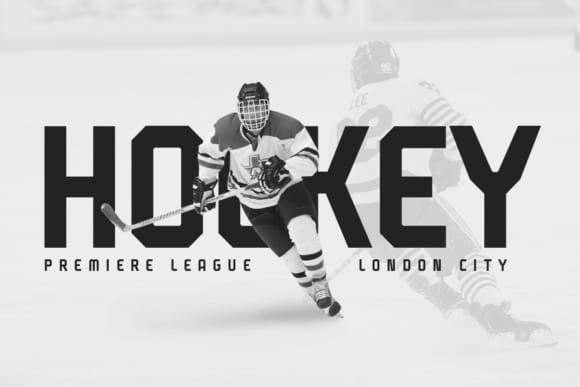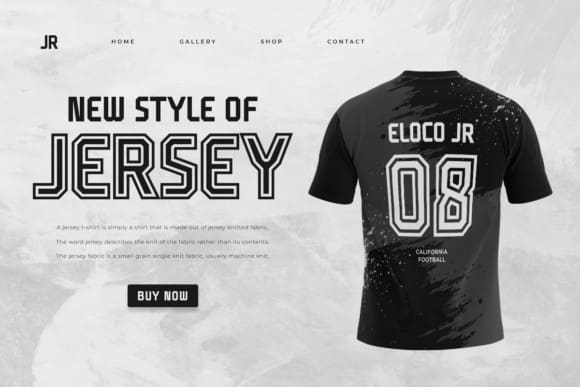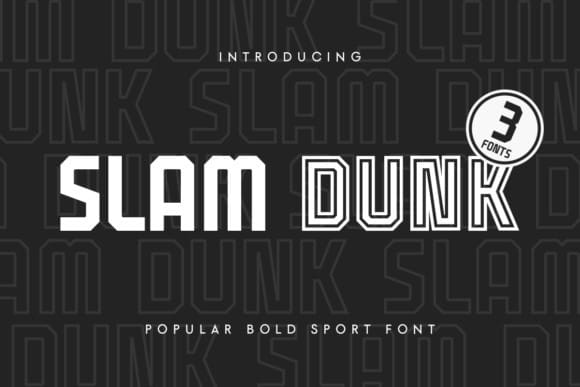
Slam Dunk Font
Slam Dunk Font is an incredibly unique sans serif font. Masterfully designed to become a true favorite, this font has the potential to bring each of your creative ideas to the highest level!